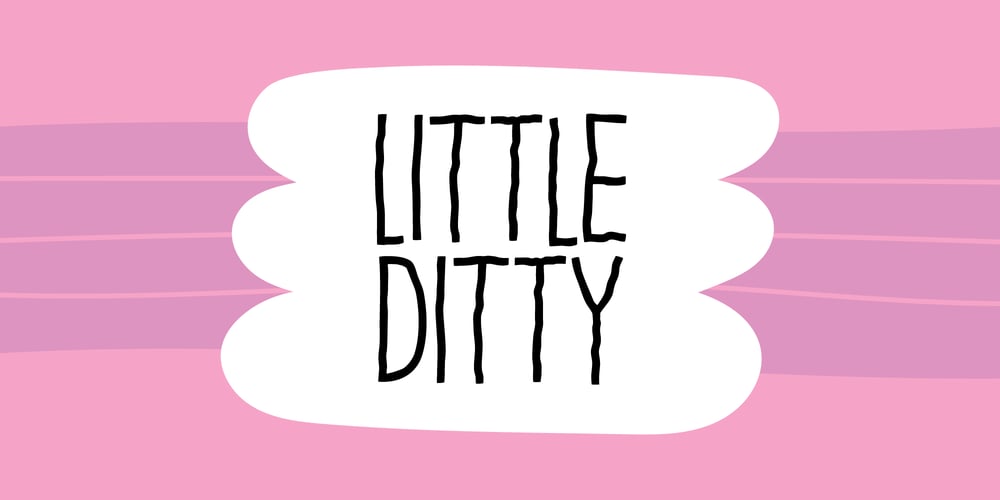
Little Ditty Font Family was designed by Jakob Fischer and published by PizzaDude.dk. Little Ditty contains 2 styles and family package options. The strokes of Little Ditty are not perfectly straight and the edges may appear slightly rough. They may look asymmetrical, or slightly irregular – but the letters appear legible, even at smaller sizes. To enhance the imperfection, I have added a total of 5 different versions of each letter.